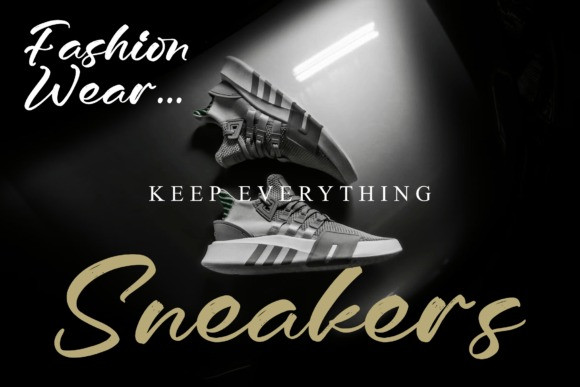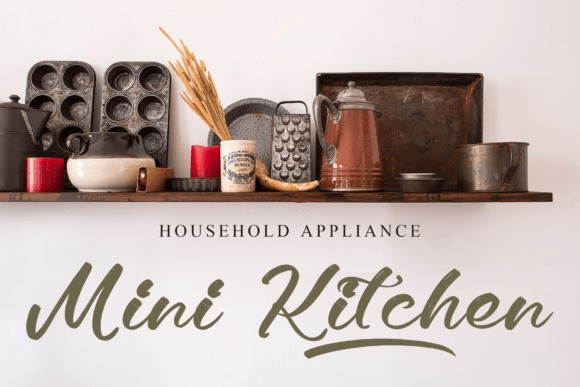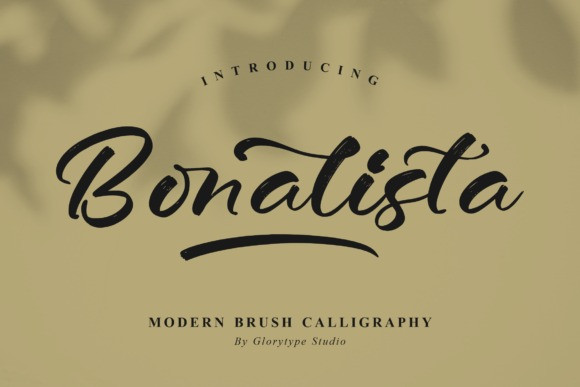
Bonalista Font
Bonalista – Modern Brush Calligraphy Font suitable for any projects such as logos, branding projects, homeware designs, product packaging, mugs, quotes, posters, shopping bags, t-shirts, book covers, name cards, invitation cards, greeting cards, labels, photography, watermark, special events, and all your other lovely projects that need a beautiful script taste.